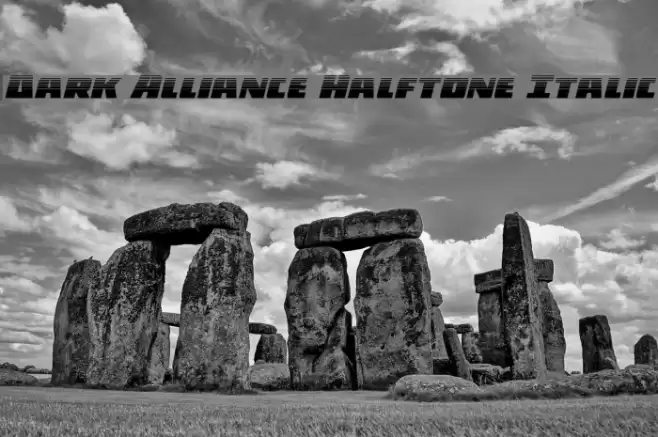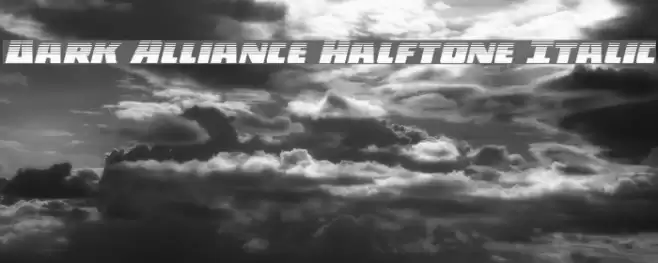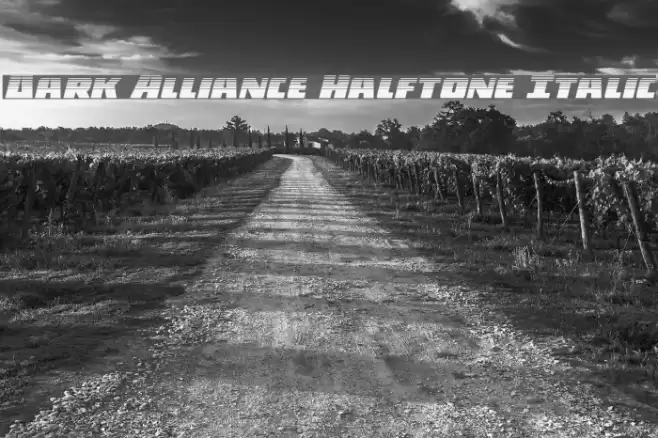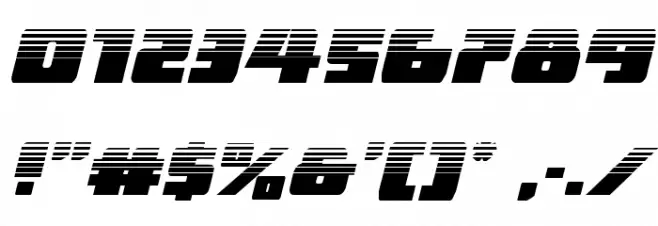
Dark Alliance Halftone Italic Font
Dark Alliance Halftone Italic Description
This font features a bold, italicized style with a distinct halftone effect, creating a dynamic and futuristic appearance. The uppercase letters are designed with a strong geometric structure, while the lowercase letters maintain a consistent style. The numbers and special characters follow the same bold and angular design, ensuring uniformity across all characters. The font's unique halftone pattern adds a sense of movement and energy, making it ideal for projects that require a modern and edgy look. Its boldness and italic slant give it a sense of urgency and impact, perfect for grabbing attention.
A bold, italicized font with a halftone effect, offering a futuristic and dynamic style from Uncategorized fonts.
- Proposed Projects: Ideal for video game titles, movie posters, technology branding, and sports team logos.